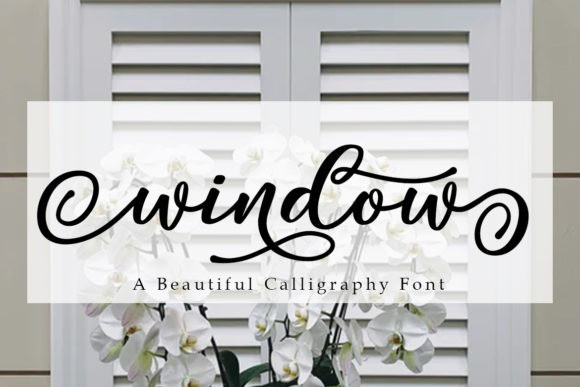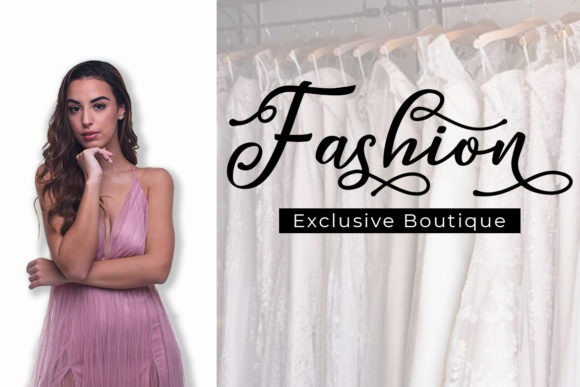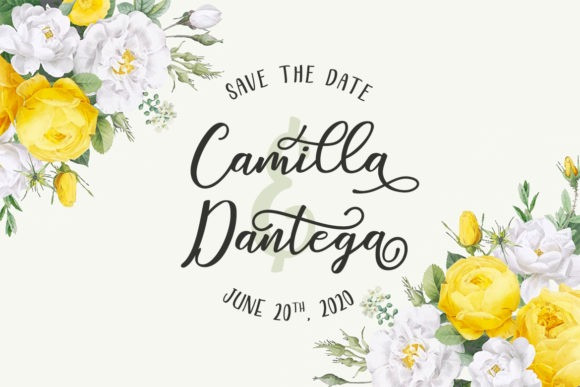
Ryan Signature Modern Script Font
Ryan Signature Modern Siganture Typeface, A collection of letters and numbers suitable your projects also great for Logotype, Branding Design, Logo Design, Digital Lettering Arts, T-Shirt/Apparel, Poster, Magazine, Signs, Advertising Design, and any design needs
Designer Name: Staircase_Studio